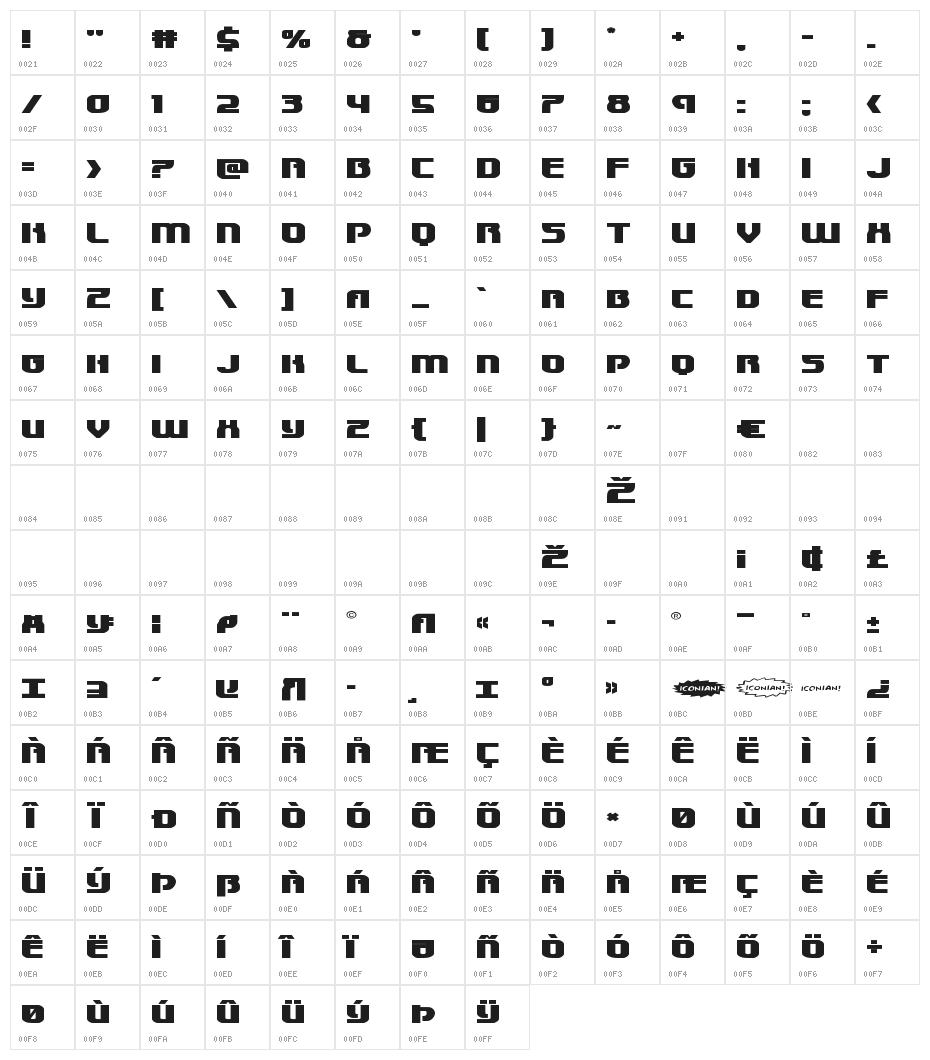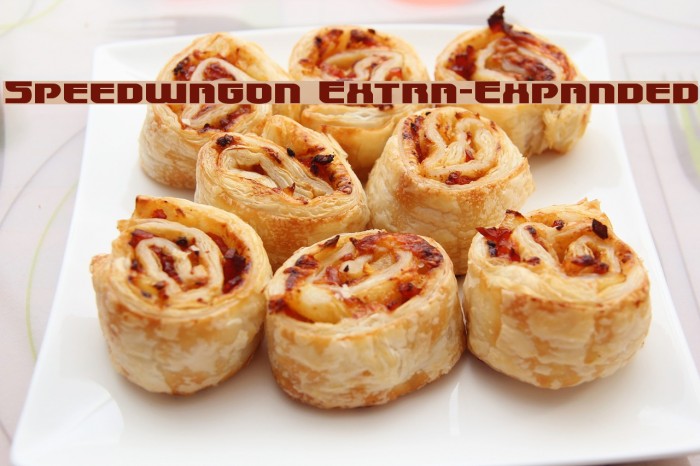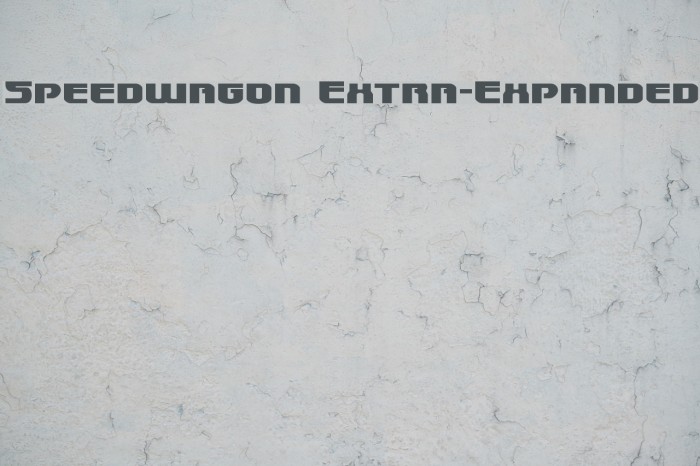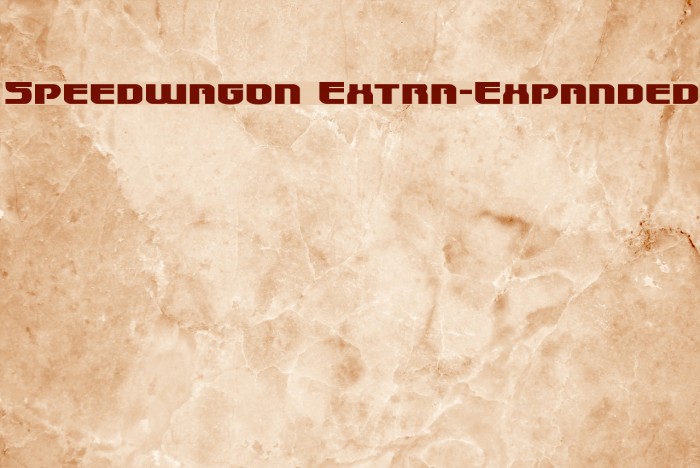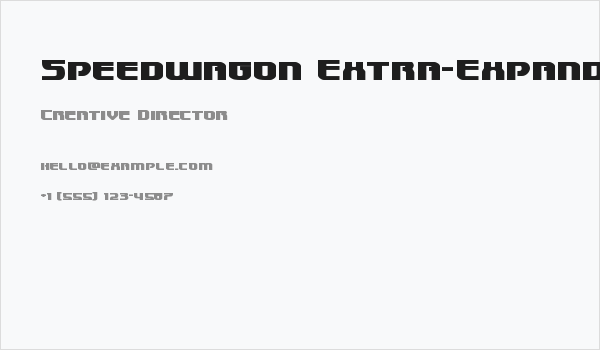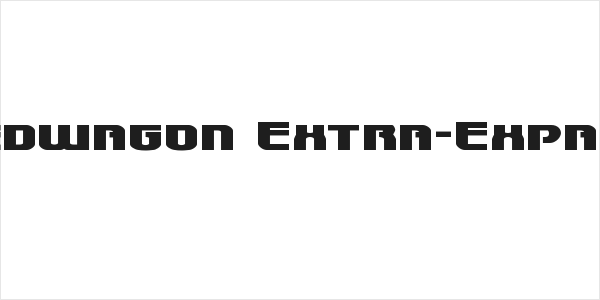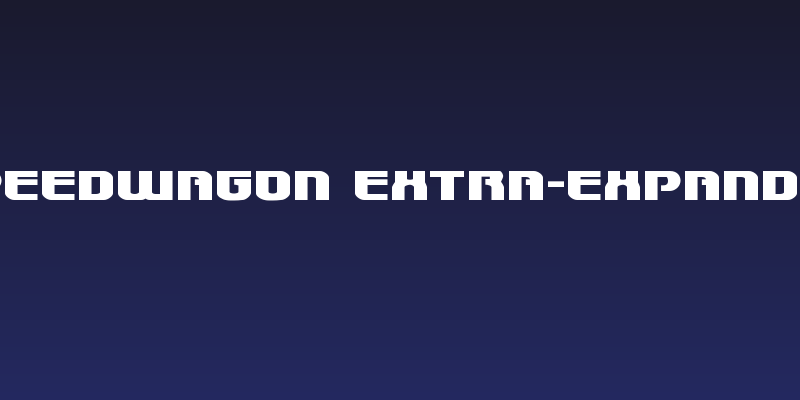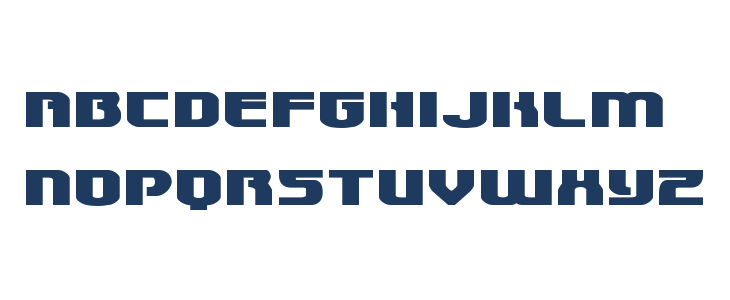
Speedwagon Extra-Expanded Font
Speedwagon Extra-Expanded Description
This font features a bold and impactful design with a distinctly modern and geometric style. The characters are extra-expanded, giving them a wide and commanding presence. The strokes are thick and consistent, providing a strong visual weight. The angular cuts and sharp edges contribute to its futuristic and industrial feel. The uppercase and lowercase letters maintain a uniform width, enhancing the font's cohesive appearance. The numerals and special characters are designed to match the boldness and geometric nature of the alphabet, ensuring a harmonious overall look.
Proposed ProjectsIdeal for branding, posters, headlines, and any design needing a strong, modern impact.